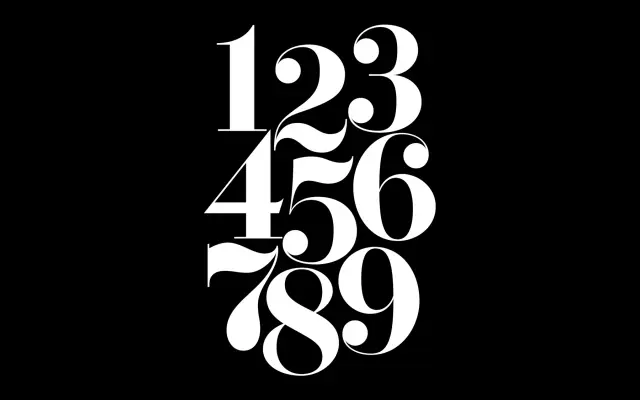
F37 Bella Display
F37 Bella Display specimen from F37 Foundry
The display cut of F37 Bella, sharpening the high-contrast didone character of the family for headlines and covers.
A display cut within the F37 Bella system, drawn across four weights with matching italics. Bella Display sharpens the high-contrast didone character of the standard family for headlines, covers and posters, with Greek and Cyrillic Display companions sitting alongside it. F37 pair it with F37 Bella Text in their suggestions, supporting fashion, fragrance, hospitality and editorial systems that want a glamorous high-contrast display voice.
F37 present Bella Display as the display cut within the Bella system, sharing the high-contrast didone character of the family and extending into Greek and Cyrillic display companions.